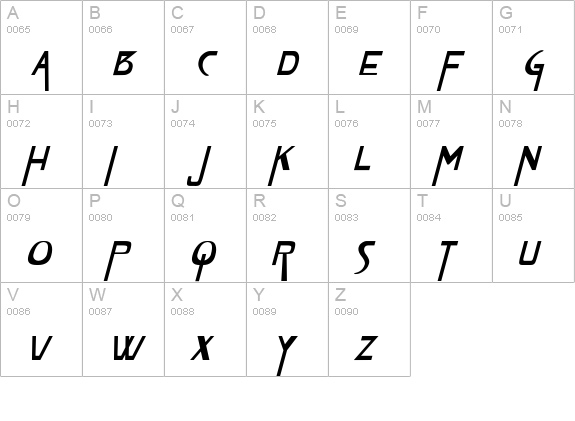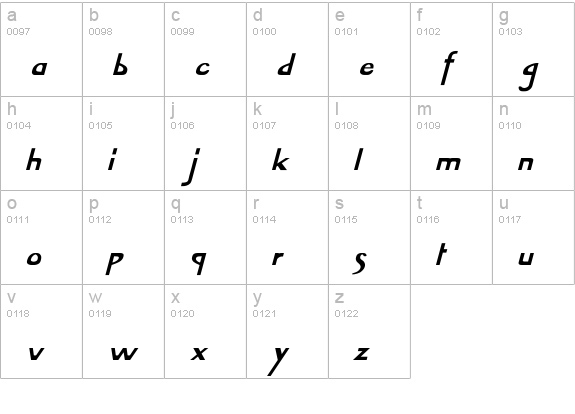
VireoFont Bold Italic Font Details
VireoFont Bold Italic is a strong, high-contrast, italic variant in the VireoFont typeface family \xE2\x80\x94 well suited to headlines, attention-grabbing titles, and strong calls-to-action.
VireoFont Bold Italic is a stunning and versatile typeface that exudes confidence and elegance. With its bold and slanted letterforms, this font adds a touch of sophistication and modernity to any design project. This font is perfect for creating eye-catching headlines, stylish logos, and striking typography. Its unique combination of boldness and italics creates a dynamic and captivating visual impact, making it ideal for both print and digital media. VireoFont Bold Italic is designed with meticulous attention to detail, ensuring that every letter and character seamlessly blend together. The smooth curves and sharp edges give this font a distinct and polished appearance, setting it apart from others. One of the best things about VireoFont Bold Italic is that it is available for free. Yes, you heard it right! This incredible font can be freely downloaded from FontsMarket.com. Whether you are a professional designer or a hobbyist, this font allows you to have access to high-quality typography without breaking the bank. Don't miss out on the opportunity to elevate your designs with VireoFont Bold Italic. Download it today from FontsMarket.com and let your creativity soar.